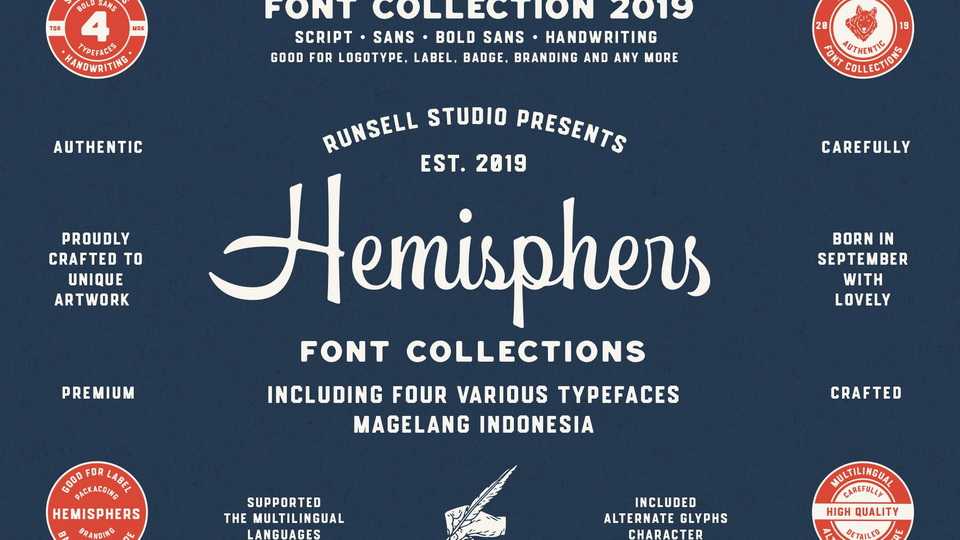
Download Hemisphersfont, a clean and classy handwritten script inspired by unique labels, badge, and packaging. Hemispheres font matches applies in some designs such as the logotype, brand, packaging, branding, quotes, business cards and more custom design.
Designer: Runsell Studio